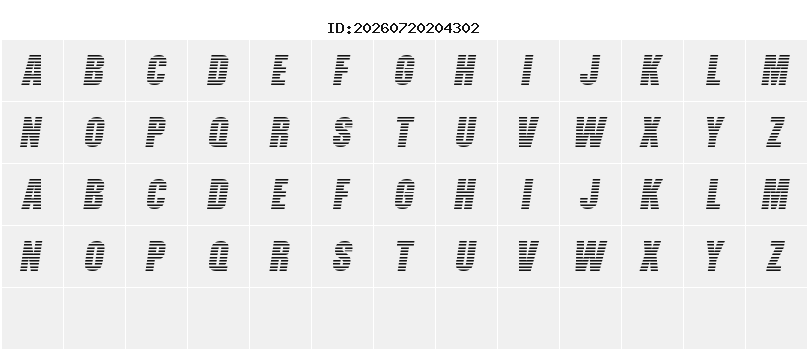
• Font Name: Former Airline
About Former Airline.ttf
Former Airline.ttf is a modern, elegant sans-serif font designed for ultimate readability and visual harmony. Perfect for branding, headlines, web design, and print materials.